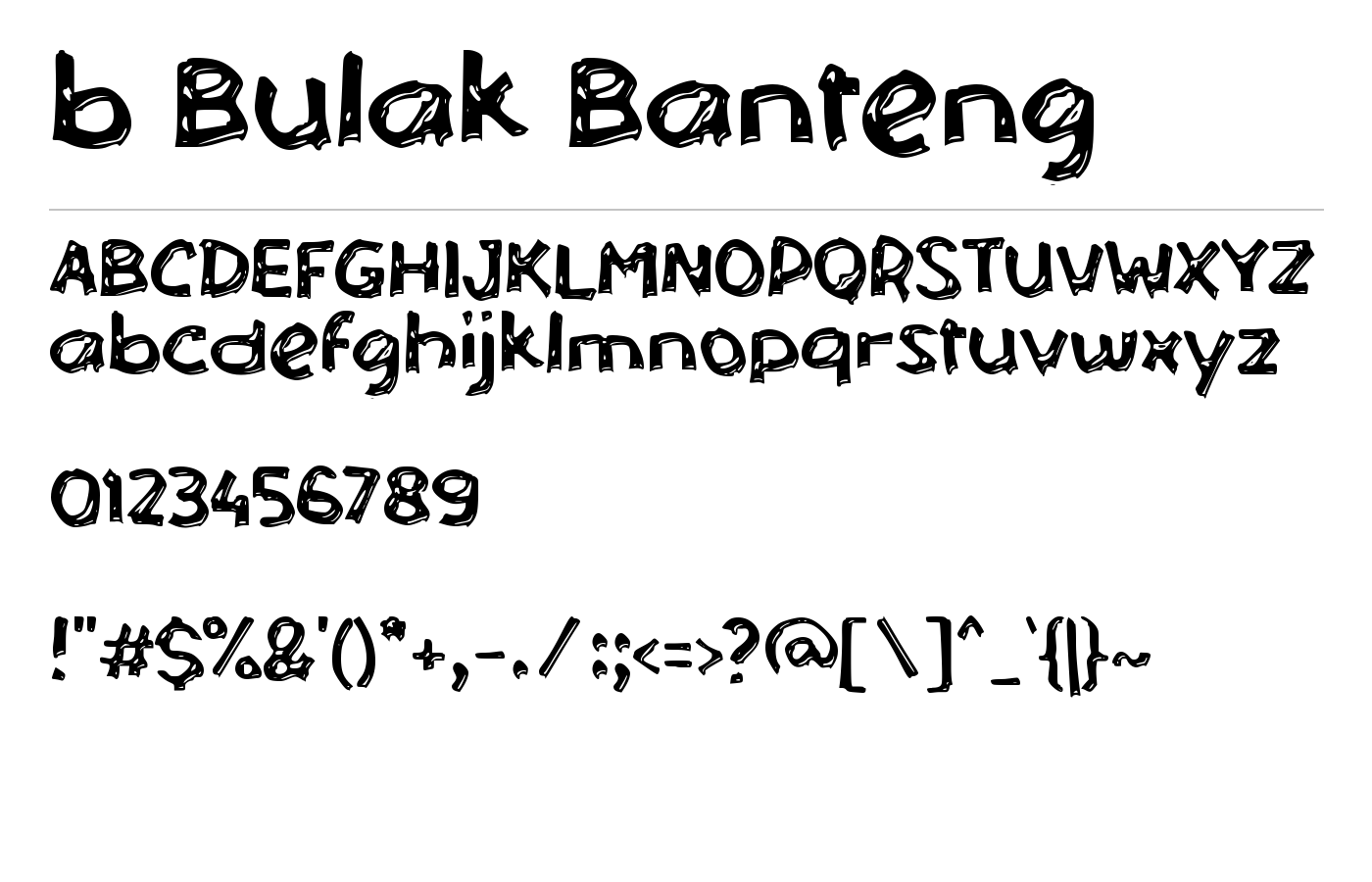
b Bulak Banteng is a bold, playful handwritten sans serif font with a rough, textured stroke that gives it a lively, organic feel. Its irregular shapes and casual style make it great for creative projects, informal branding, or eye-catching headlines where a fun and energetic vibe is desired. This font stands out in packaging, posters, and designs that aim to convey personality and uniqueness.
b Bulak Banteng Font
About b Bulak Banteng Font
| Font family | b Bulak Banteng Font |
| Designer | WAhyu Eka Prasetya |